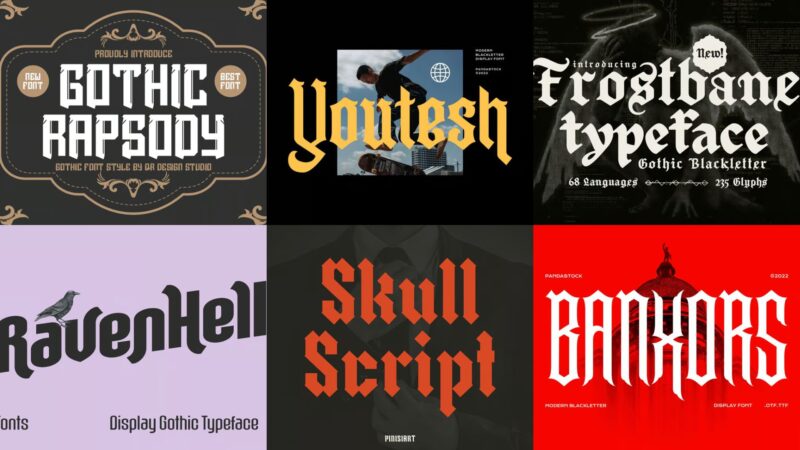
As graphic designers, we sometimes need to tap into the darker side of typography. Whether you’re designing for a metal band, creating Halloween decorations, or building a brand that embraces the mysterious and macabre, goth fonts are your ticket to typographic darkness.
Goth fonts are exactly what they sound like – typefaces that embody the dark, dramatic aesthetic of gothic culture. They feature sharp edges, ornate details, medieval influences, and an unmistakable air of mystery that can transform any design from ordinary to otherworldly.
The Most Haunting Goth Fonts of 2026
Let’s face it, not all goth fonts are created equally. So I’ve compiled a list of my favorite spine-chilling goth fonts at the moment. Here they are:
Raven Hell Gothic
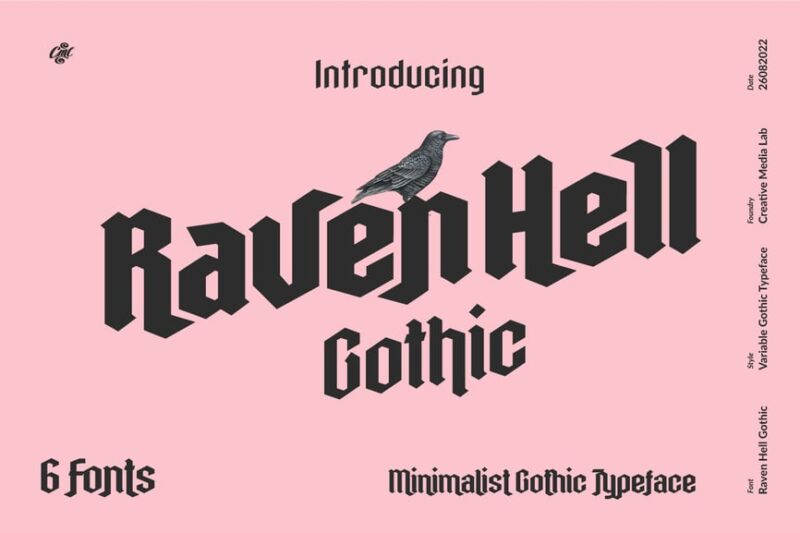
Raven Hell Gothic is a striking sans-serif font with a strong Halloween and blackletter influence. It combines modern simplicity with gothic undertones, making it perfect for spooky or edgy designs.
Gothicon
Gothicon is a decorative font that embodies medieval and death themes. Its intricate design and bold strokes make it ideal for creating dramatic, dark-themed graphics or logos.
Blackville – Gothic Blackletter Font
Blackville is a classic gothic blackletter font that exudes an air of antiquity and elegance. Its ornate letterforms are perfect for creating medieval-inspired designs or adding a touch of sophistication to modern projects.
Gothic Rapsody – Blackletter Font
Gothic Rapsody is a unique blackletter font that blends traditional gothic elements with a funky, modern twist. Its playful yet sophisticated style makes it versatile for both classic and contemporary designs.
Gothix – Hand Brush Typeface
Gothix is a dynamic hand brush typeface that combines gothic influences with a cool, modern aesthetic. Its rough, textured strokes give designs an edgy and artistic feel, perfect for branding or editorial projects.
Colide – Gothic Font
Colide is a bold gothic display font that commands attention. Its strong, angular letterforms make it ideal for headlines, posters, or any design that needs to make a powerful visual impact.
Gothema – A Modern Geometric Sans
Gothema is a sleek, modern geometric sans-serif font. Its clean lines and balanced proportions make it highly readable and versatile, suitable for both body text and display purposes in contemporary designs.
Gothemian – Vintage Sans Serif Font
Gothemian is a vintage-inspired sans-serif font with a retro and slightly quirky feel. Its unique character makes it perfect for creating designs with a nostalgic or offbeat vibe.
Riemish
Riemish is a decorative serif font featuring ornate details and an urban edge. Its blend of classical elements with modern flair makes it suitable for creating sophisticated, eye-catching designs with a contemporary twist.
Seezkia Gothic
Seezkia Gothic is a decorative font that combines gothic and medieval influences. Its intricate design and strong character make it ideal for creating dramatic, period-inspired graphics or logos.
Winner Gothic – Medieval Font
Winner Gothic is a bold medieval-inspired blackletter font. Its strong, victorious character makes it perfect for creating impactful designs with a historical or powerful theme.
Blackletter Logo Font – Altar Gothic
Altar Gothic is a heavy blackletter font designed specifically for logos. Its bold, imposing presence makes it ideal for creating memorable brand identities with a gothic or edgy aesthetic.
Tendencious – Vintage Gothic Display Typeface
Tendencious is a vintage-inspired gothic display typeface that combines serif and decorative elements. Its unique blend of old-world charm and modern flair makes it perfect for creating distinctive, eye-catching designs.
Gothic Horror
Gothic Horror is a decorative font that embodies the essence of Halloween and classic horror cinema. Its eerie, atmospheric design is perfect for creating spooky, suspenseful graphics or movie-inspired designs.
Necrovoid – Heavy Metal Font
Necrovoid is a powerful heavy metal font with a strong, imposing presence. Its aggressive, edgy design makes it perfect for creating intense, high-impact graphics for metal bands or extreme sports brands.
Youtesh – Blackletter Style Font
Youtesh is a blackletter-style font that combines gothic and deathcore influences. Its intricate, aggressive design is ideal for creating intense, dark-themed graphics or logos for metal bands or alternative subcultures.
Frostbane – Gothic Blackletter Typeface
Frostbane is a gothic blackletter typeface with a strong Old English influence. Its ornate, frosty design makes it perfect for creating winter-themed or medieval-inspired graphics with a touch of elegance.
Goth fonts channel centuries of dark tradition and mysterious allure into modern design. Their dramatic presence ensures your projects will never fade into the background.
So embrace the darkness and try some of these haunting goth fonts in your own projects. Used thoughtfully, they create memorable designs that speak to the soul’s darker desires.